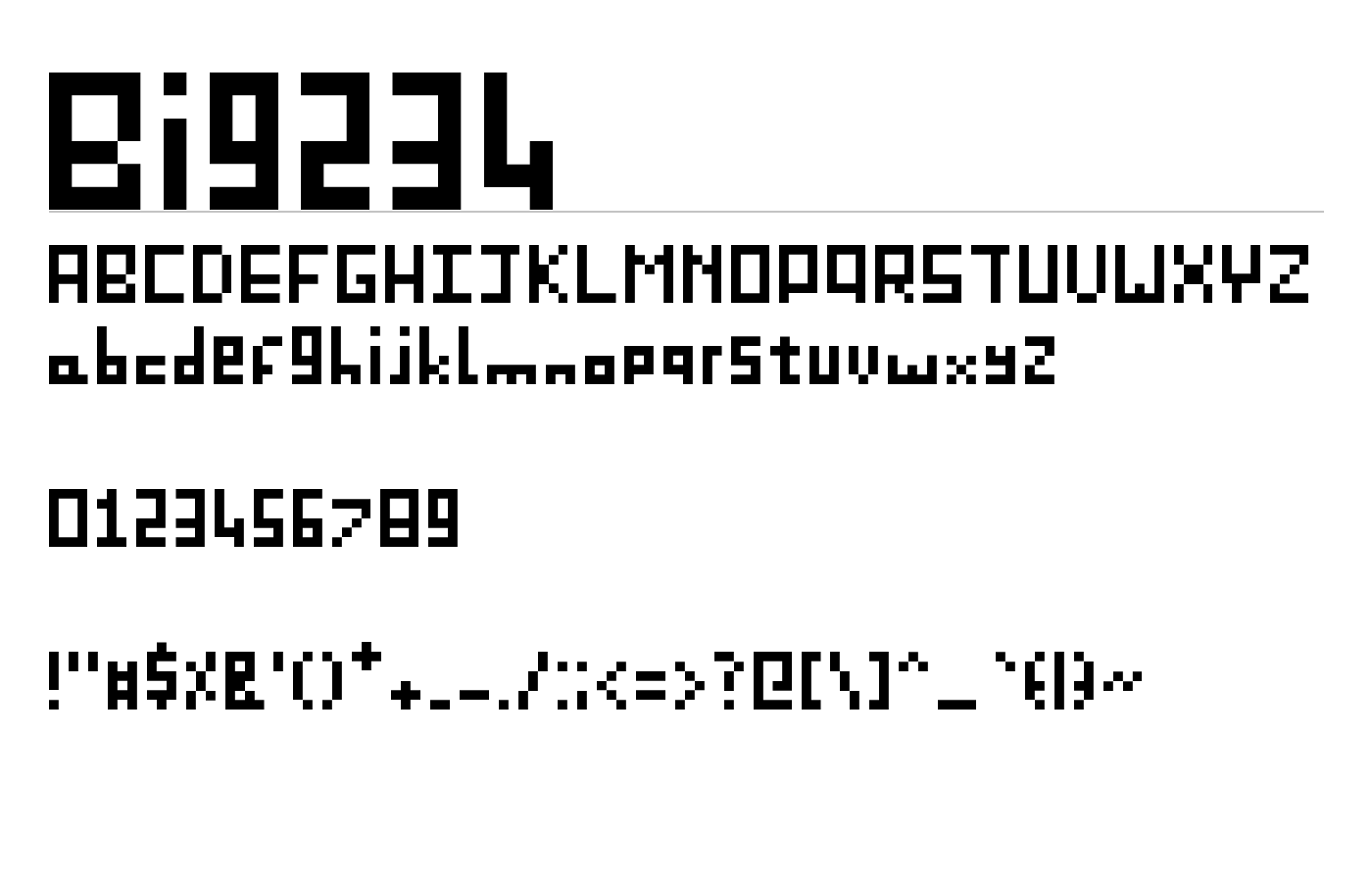
Big234 Font is a bold, pixel-inspired sans serif typeface with a distinct blocky and geometric appearance, reminiscent of retro digital displays or video games. Its consistent stroke weight, square shapes, and minimal contrast make it ideal for tech, gaming, or digital-themed projects, delivering a strong, modern, and slightly nostalgic vibe. This font works best in headlines, logos, or any design that benefits from a clean, futuristic, and tech-savvy style.
Big234 Font
About Big234 Font
| Font family | Big234 Font |
| Designer | WilliamD47 |